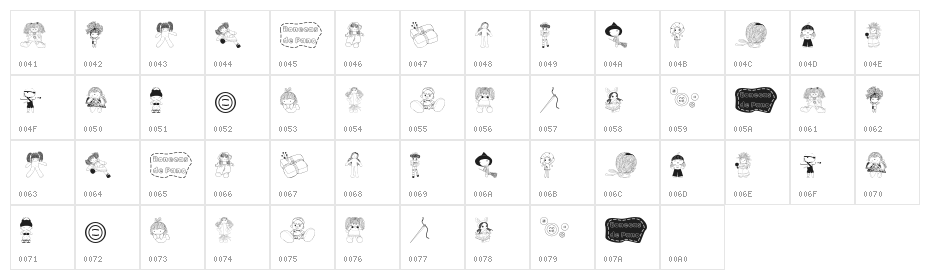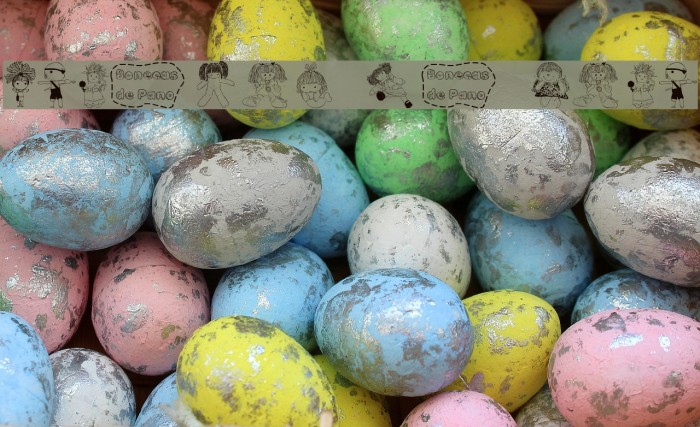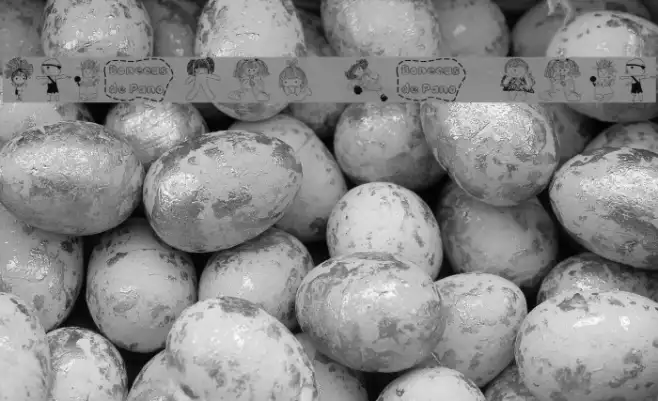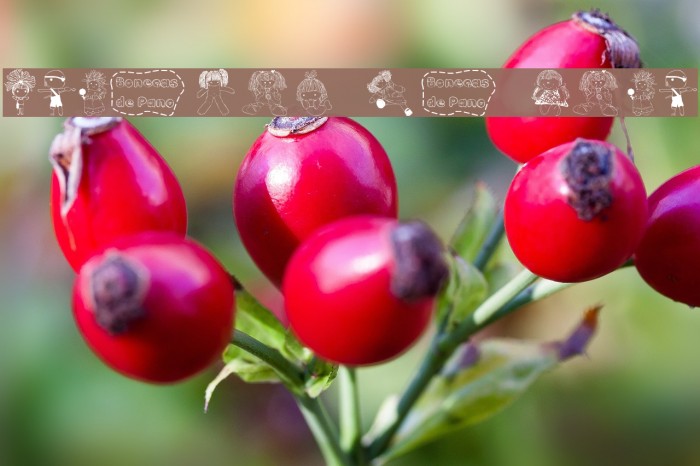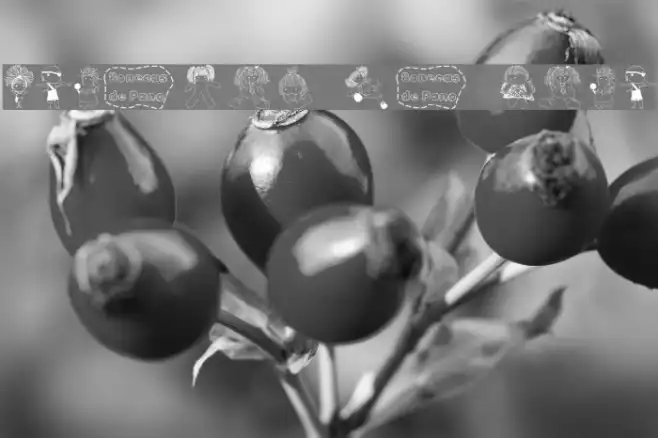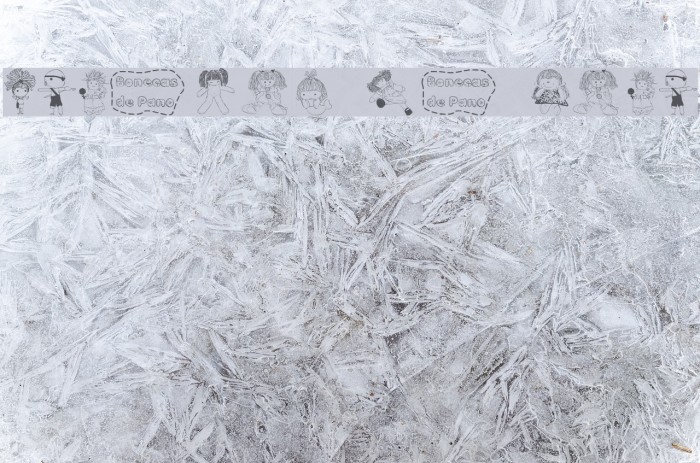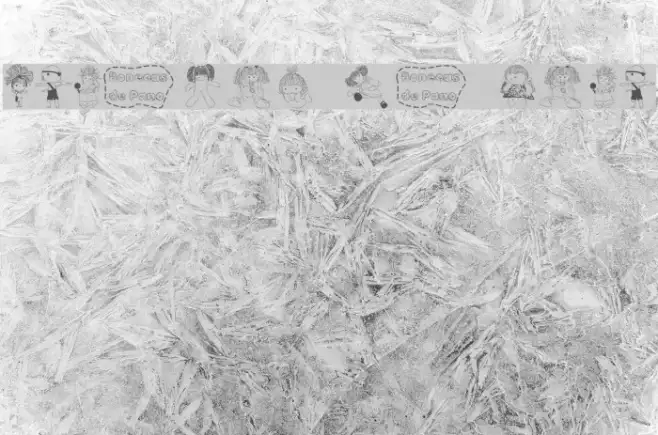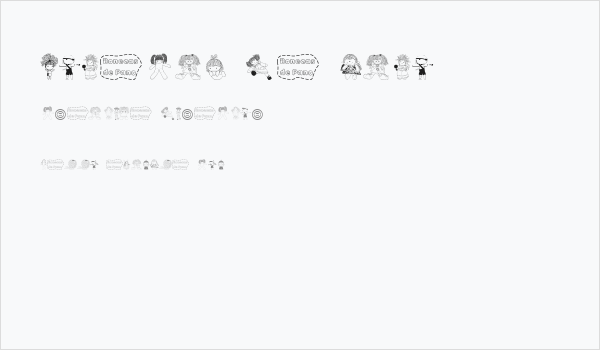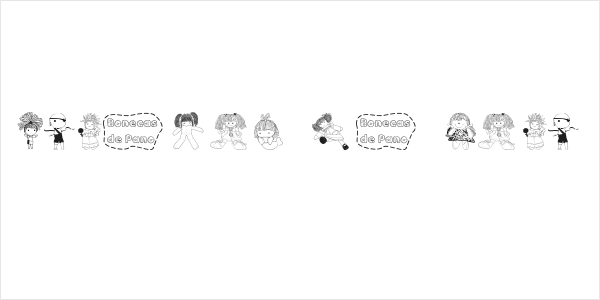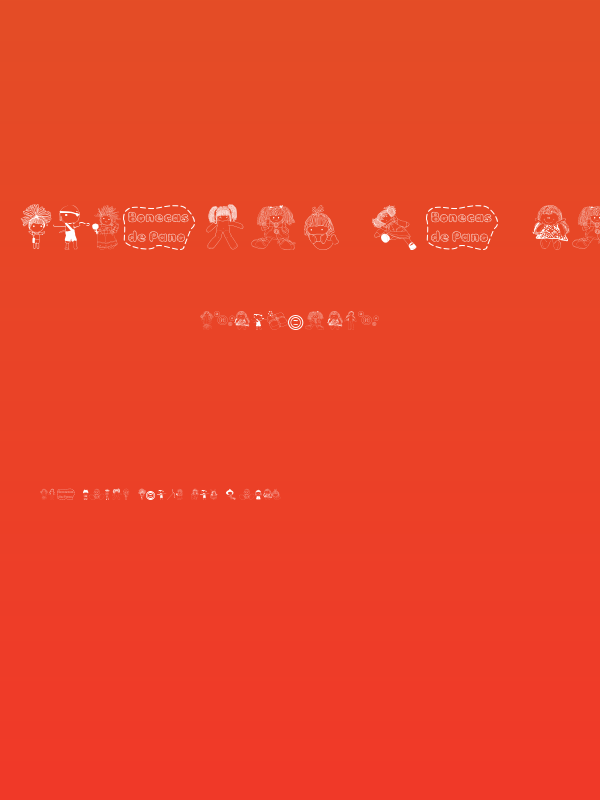
BonecaS de Pano Font
BonecaS de Pano Description
This is not a valid font. The image contains illustrations of dolls and related items, which are decorative and thematic rather than typographic characters. The elements are whimsical and playful, depicting various doll-like figures and sewing motifs, which are not suitable for traditional text representation.
| Use Case | Illustrations, Decorative elements |
| Proposed Projects | This set of illustrations could be used for children's book illustrations, themed party invitations, or craft project designs. |